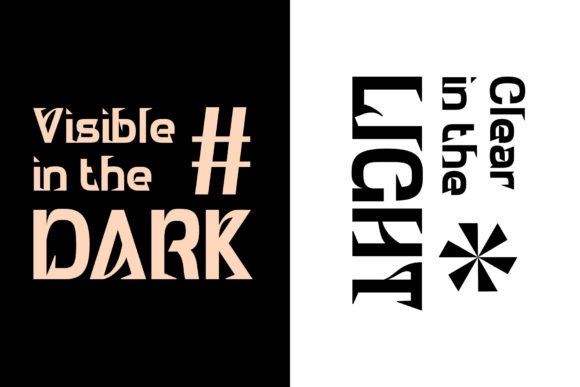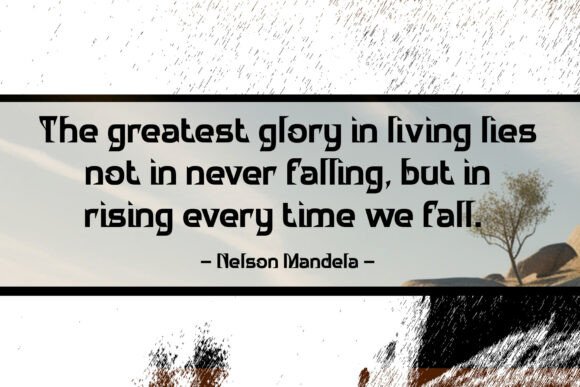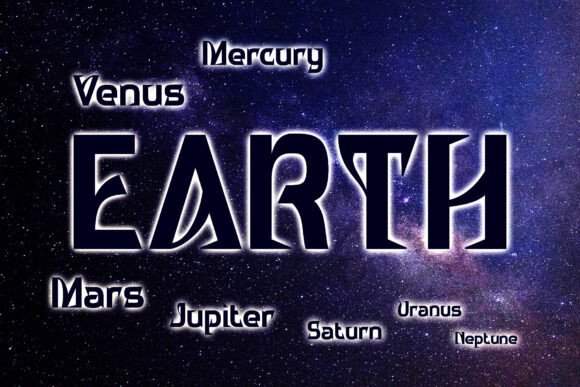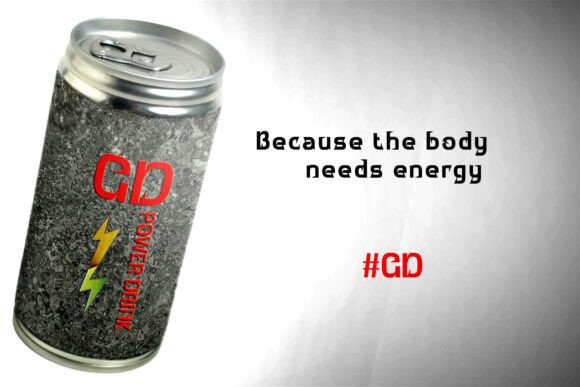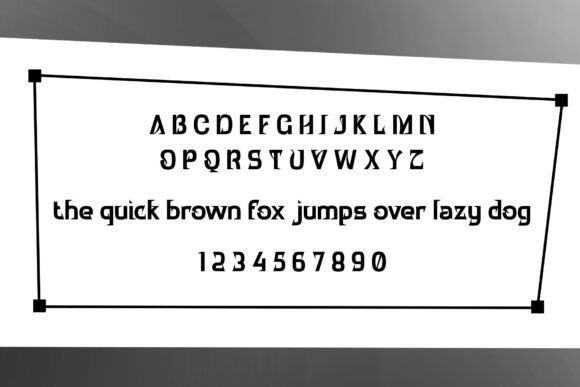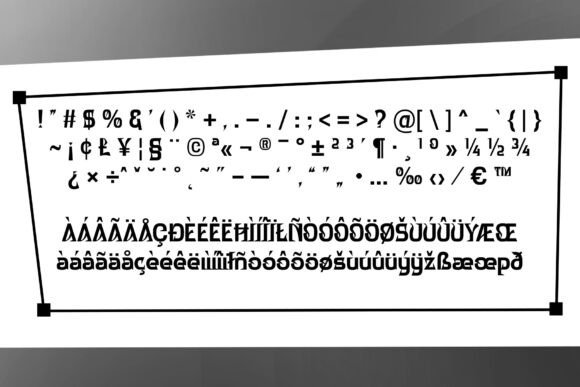
Introduction to Cyberal Font
Cyberal is a sleek and modern font with a futuristic look.
Its unique design features sharp lines and smooth curves, making it perfect for tech-themed projects or anything that needs a cutting-edge style .
Key Features of Cyberal Font
Why Choose Cyberal Font?